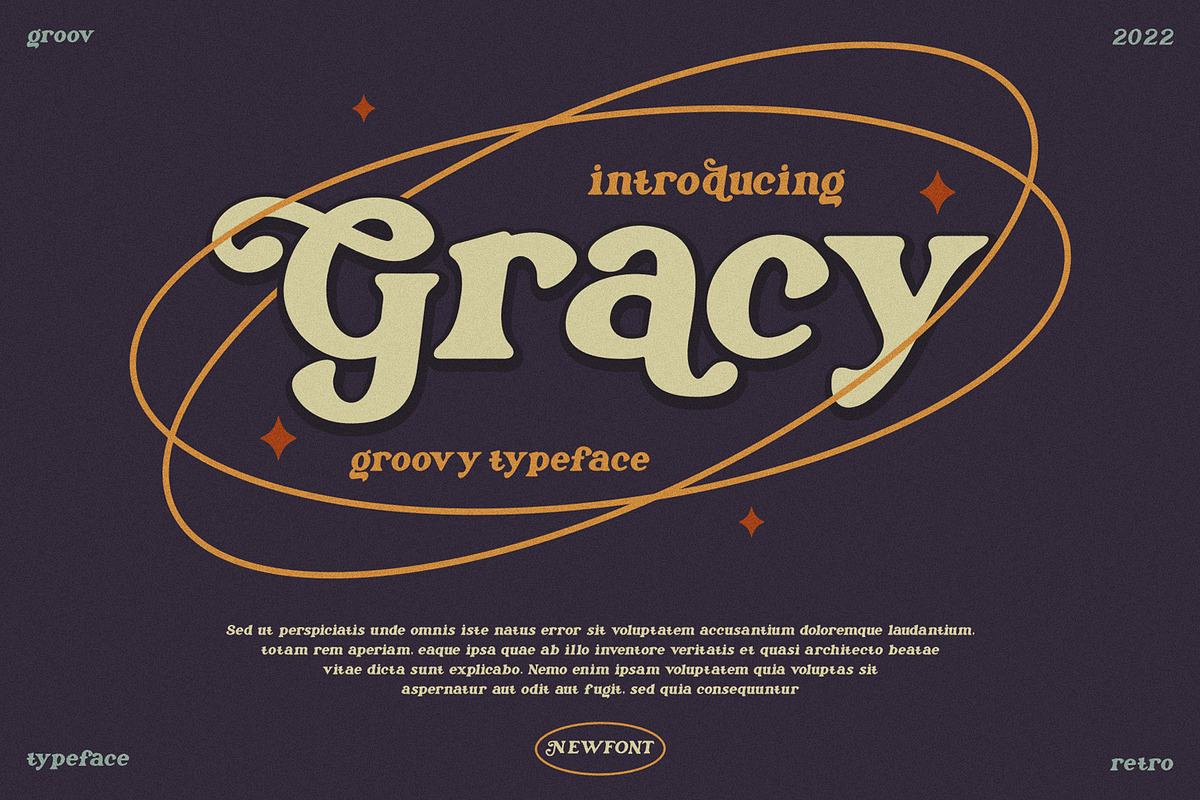
Gracy - Groovy Typeface Free Download
Gracy - Groovy Typeface Free Download brings retro charm with a modern twist, making it perfect for bold, playful designs. With its funky curves and vibrant character, Gracy captures the essence of the ‘70s while staying fresh and relevant for today’s creative projects. Whether you're crafting a music poster, vintage logo, or social media graphics, this typeface adds instant personality.